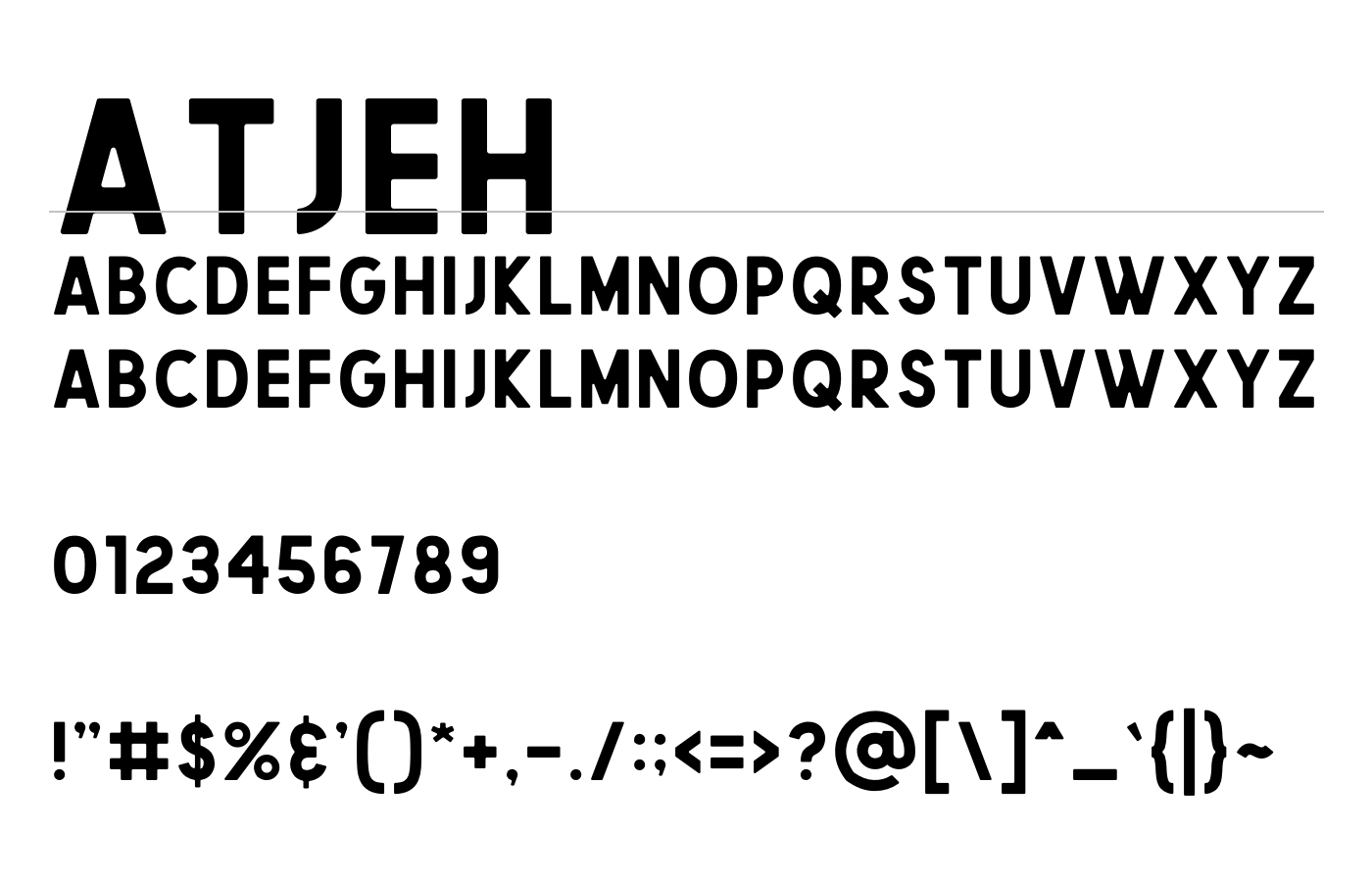
Atjeh is a bold, condensed sans serif font with a modern and slightly geometric feel. Its uniform stroke weight and clean edges give it a strong, impactful presence, making it ideal for bold headlines, branding, and display uses where clarity and confidence are key. This typeface works well in contemporary design contexts that require a straightforward yet distinctive look.
Atjeh Font
About Atjeh Font